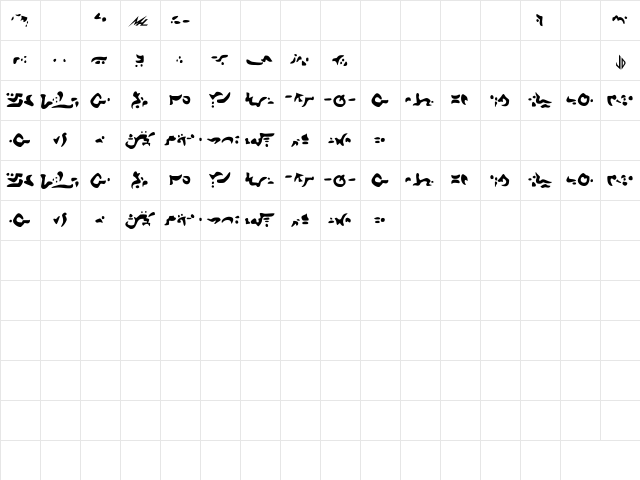
Guild Bold Font Preview
Guild Bold
Guild Bold Font Details
Design Context for Guild Typeface
Guild is a composed and adaptable typeface that performs quietly and consistently across a wide range of design contexts. Its bold stroke weight gives it real presence on the page.